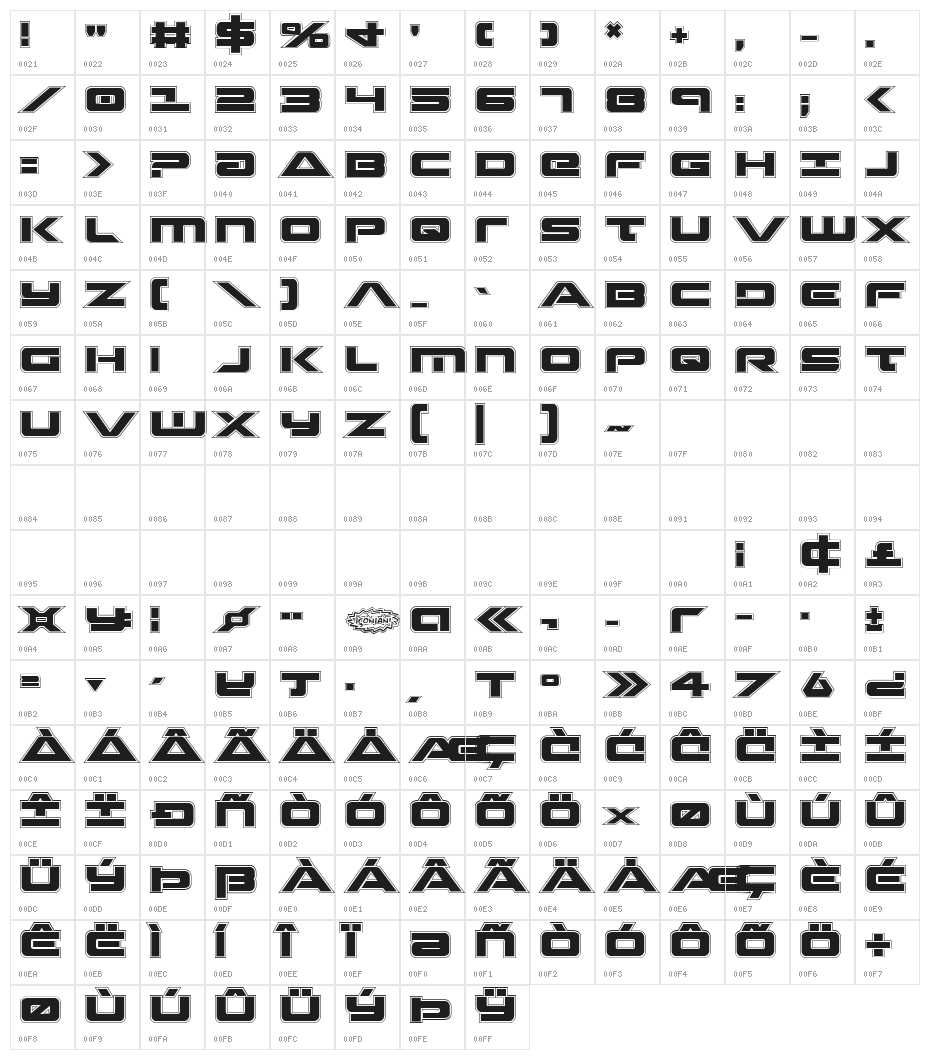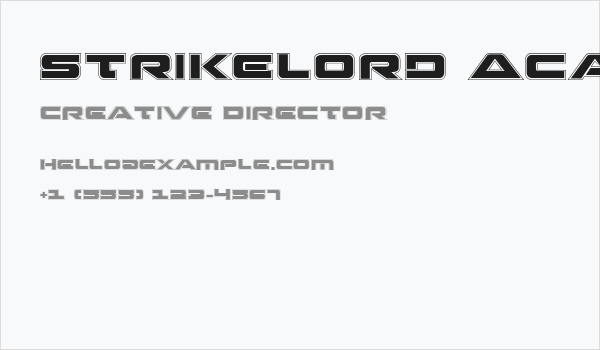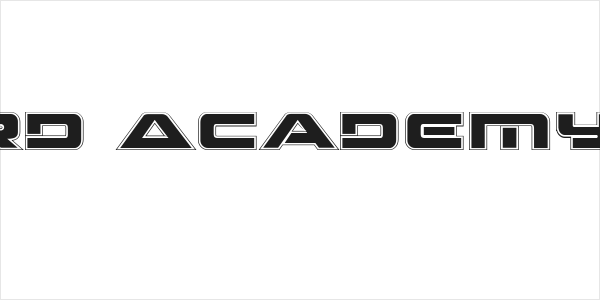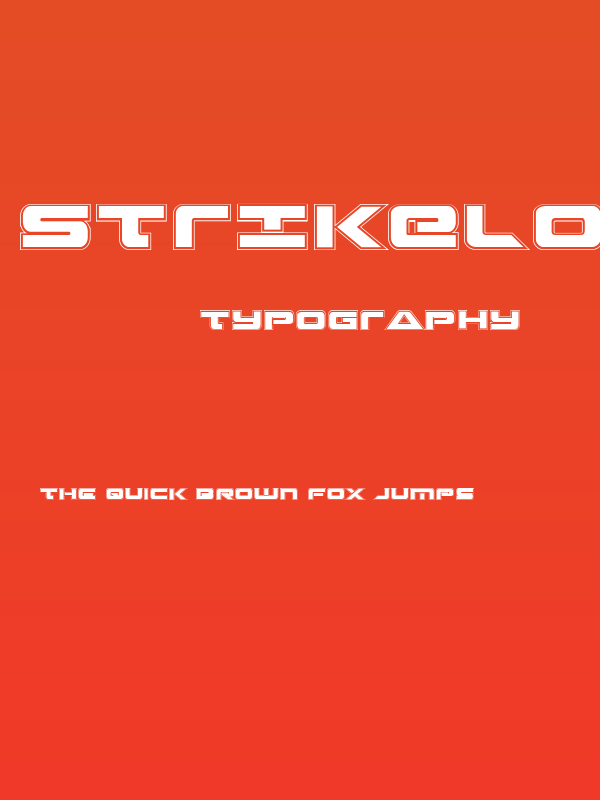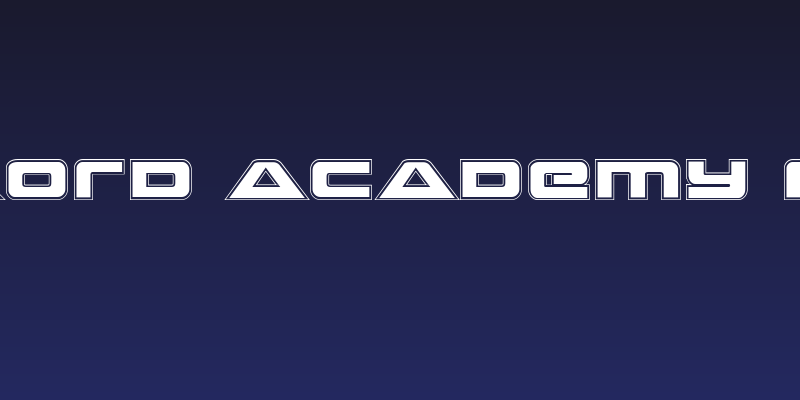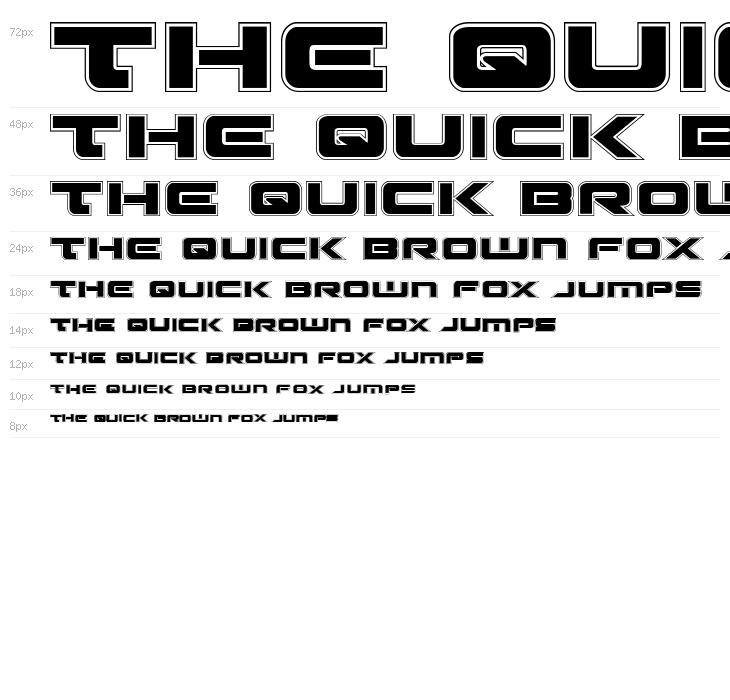
Strikelord Academy Regular Font
Strikelord Academy Regular Description
This font features a bold and futuristic design with a strong geometric structure. The characters are outlined with a thick border, giving them a three-dimensional appearance. The angular and sharp edges contribute to a modern and dynamic feel, making it stand out in any design. The uppercase and lowercase letters maintain a consistent style, with the numerals and special characters following suit. This font is ideal for projects that require a bold statement and a contemporary aesthetic.
| Proposed Projects | Ideal for sci-fi themed projects, video game titles, posters, and branding that requires a modern and bold look. |